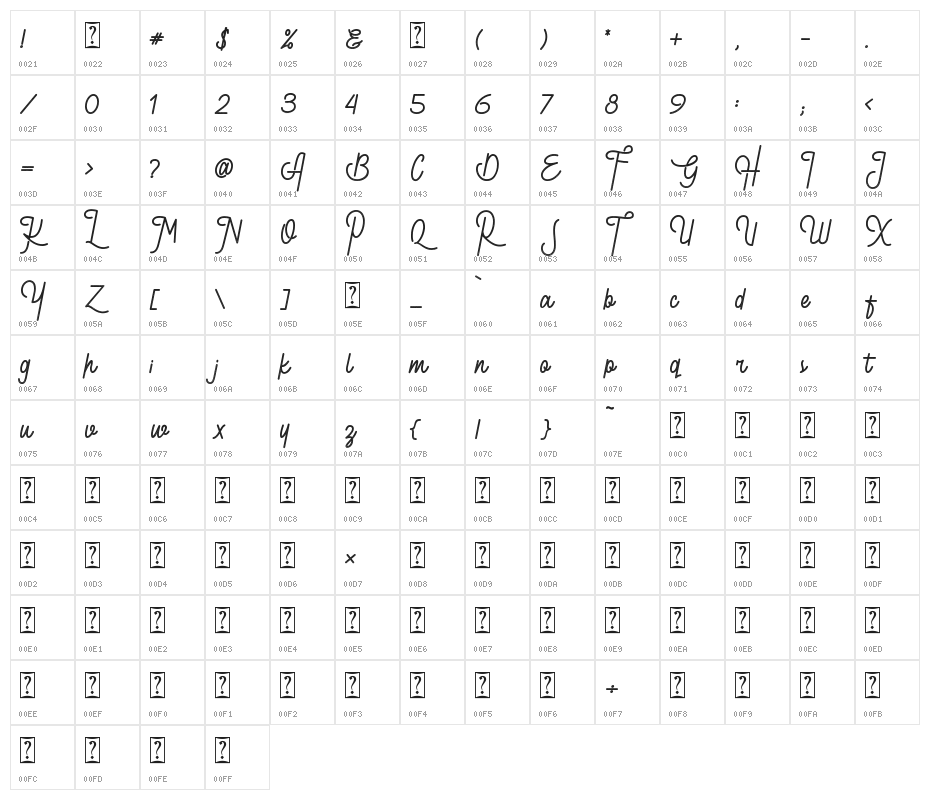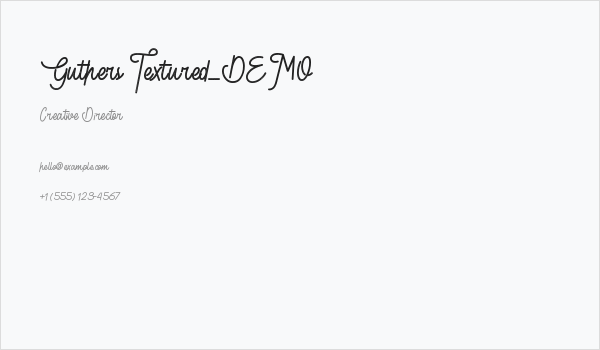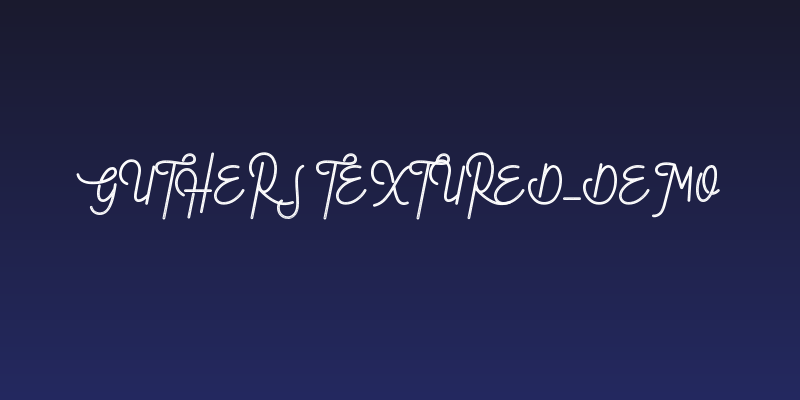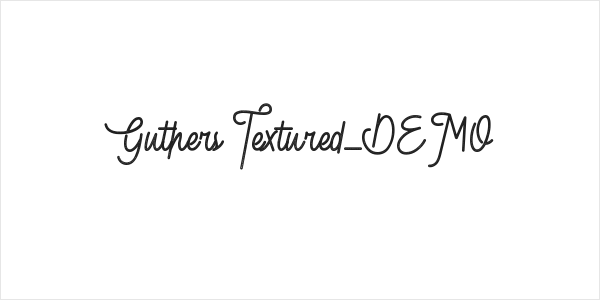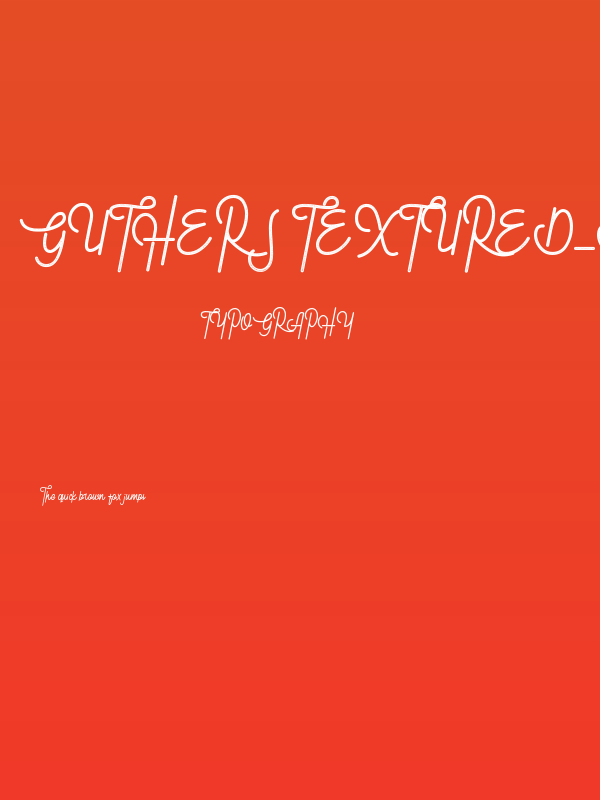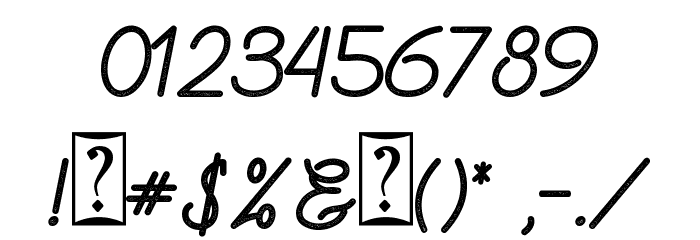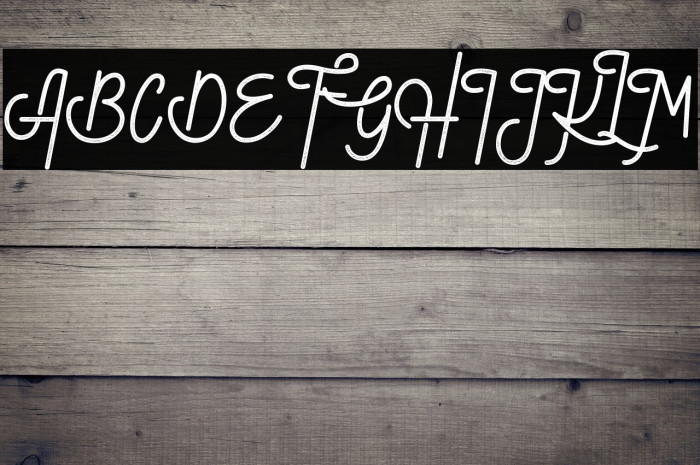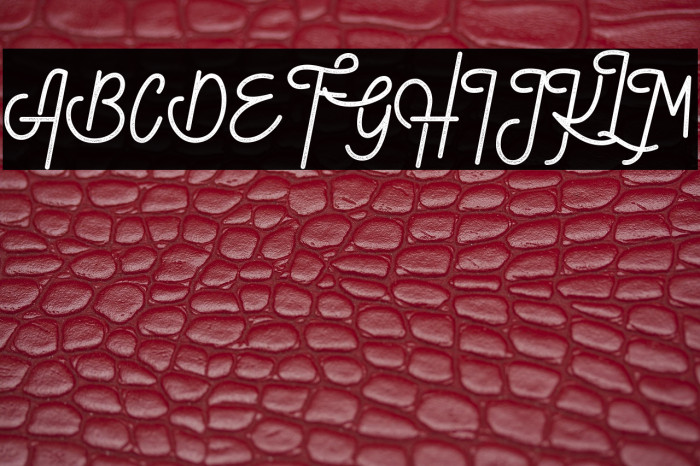
Guthers Textured_DEMO Font
Guthers Textured_DEMO Description
This font features a textured, hand-drawn style that combines elegance with a playful touch. The uppercase letters are tall and slender with unique loops and curves, giving them a whimsical appearance. The lowercase letters are more compact, maintaining the same textured effect, which adds a sense of cohesion and flow. Numbers are clear and consistent with the overall style, while special characters retain the same playful, hand-drawn quality. The texture adds depth and character, making it suitable for creative and artistic projects.
| Proposed Projects | Ideal for invitations, greeting cards, posters, and branding materials that require a playful yet elegant touch. |